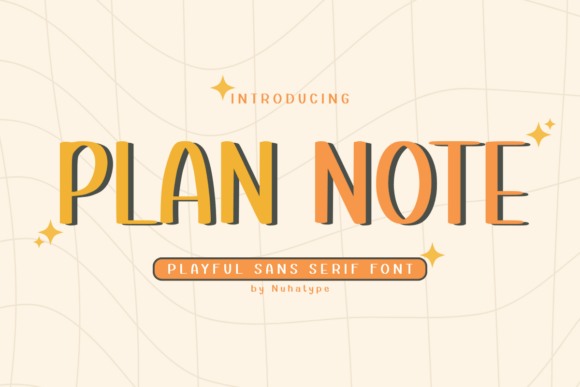
Plan Note: The Font That Elevates Your Brand
The Perfect Font for Small Businesses Looking to Stand Out
As a small business owner, you know that every detail matters. From your logo to your website, from your packaging to your social media posts, consistency and clarity are key to building trust with your customers. That’s where Plan Note comes in. This soft, friendly handwriting font brings a warm and handcrafted feel that can transform your brand materials into something memorable and professional.
What Is Plan Note?
Plan Note is a sans serif font designed with a natural, handwritten look. It feels like it was created by hand, with gentle curves and a playful yet approachable personality. Its soft lines and friendly curves make it ideal for businesses that want to convey warmth, creativity, and authenticity.
This font isn’t just visually appealing—it’s also practical. Whether you’re designing a logo, creating product labels, or crafting social media graphics, Plan Note adds a personal touch without overwhelming the viewer. Its clean structure ensures readability, even at smaller sizes, making it a versatile choice for both digital and print projects.
How Plan Note Enhances Your Brand Identity
Consistency is one of the most important aspects of branding. When your fonts are consistent across all your materials, your brand becomes more recognizable and trustworthy. Plan Note helps you achieve this by offering a unique typeface that can be used throughout your brand’s visual identity.
For example, if you run a boutique or an online shop, using Plan Note on your website headers and product tags creates a cohesive look that aligns with your brand’s personality. Similarly, if you’re a café owner, incorporating Plan Note into your menu design and signage can make your space feel more inviting and personalized.
Real-World Applications for Plan Note
Plan Note is incredibly versatile and works well in a variety of settings. Here are some practical examples of how you can use it:
- Logos: Use Plan Note as your primary logo font to create a friendly and approachable brand image.
- Business Cards: Pair Plan Note with a clean sans serif font for a balanced and professional look.
- Product Labels: Add a touch of charm to your handmade candles, teas, or skincare products with this warm handwriting font.
- Menu Design: Make your café or restaurant menu stand out with a stylish and readable typeface like Plan Note.
- Social Media Graphics: Use Plan Note for headlines, captions, and call-to-action buttons to engage your audience.
- Website Banners: Create eye-catching banners with Plan Note to draw attention and highlight your offerings.
- Thank-You Cards: Send personalized thank-you notes to your customers with a handcrafted feel.
- Stickers and Posters: Use Plan Note for creative designs that reflect your brand’s personality.
By using Plan Note consistently across these touchpoints, you’ll create a stronger brand presence that resonates with your target audience.
When to Use Plan Note: Headlines, Logos, and More
Plan Note is best used as a headline or display font due to its expressive and decorative nature. It works especially well for short text like titles, headings, and taglines. For longer body text, consider pairing it with a more readable sans serif or serif font to maintain clarity.
If you're designing a logo, Plan Note can serve as the main typeface, giving your brand a friendly and approachable feel. However, for larger brand assets like websites or packaging, it's wise to pair it with a complementary font to ensure readability and balance.
Readability Matters
While Plan Note has a beautiful, handwritten look, it’s important to consider how it performs in different contexts. On mobile screens, small labels, and printed packaging, legibility is crucial. Always test your designs at various sizes to ensure the font remains clear and easy to read.
For instance, using Plan Note on a product label should still be legible when viewed up close. Similarly, your social media thumbnails should be readable on smaller screens. Testing your designs before finalizing them will help you avoid any potential issues.
Font Pairing Tips for Better Branding
Pairing Plan Note with other fonts can enhance your brand’s visual appeal while maintaining professionalism. Here are a few simple combinations:
- Plan Note + Clean Sans Serif: Combine the warmth of Plan Note with the simplicity of a modern sans serif font for a balanced and professional look.
- Plan Note + Readable Serif: Use Plan Note for headlines and a serif font for body text to create a classic and elegant style.
- Plan Note + Modern Script: If you want a more stylized look, pair Plan Note with another script font for a cohesive and creative design.
Experiment with different combinations to find what best represents your brand’s personality and goals.